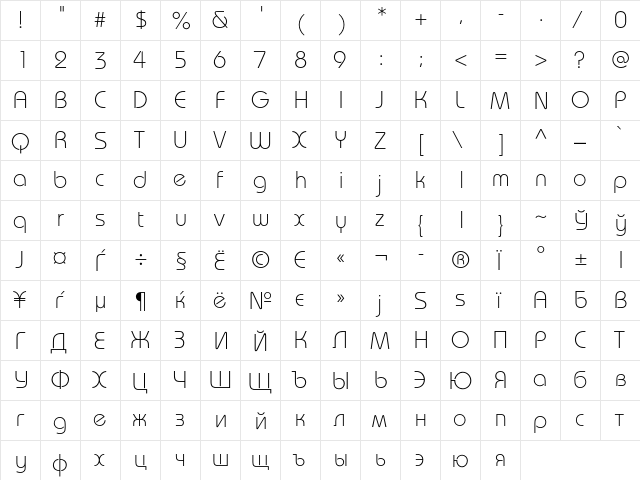
BauhausLightC Regular
Design Context for BauhausLightC Typeface
BauhausLightC is a composed and adaptable typeface that performs quietly and consistently across a wide range of design contexts. Its slender proportions lend an understated elegance to any composition.